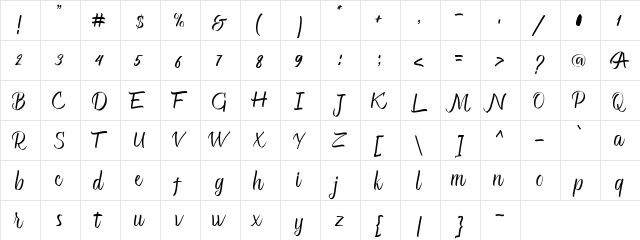
Glitter Medium
Design Context for Glitter Typeface
Glitter is a composed and adaptable typeface that performs quietly and consistently across a wide range of design contexts.